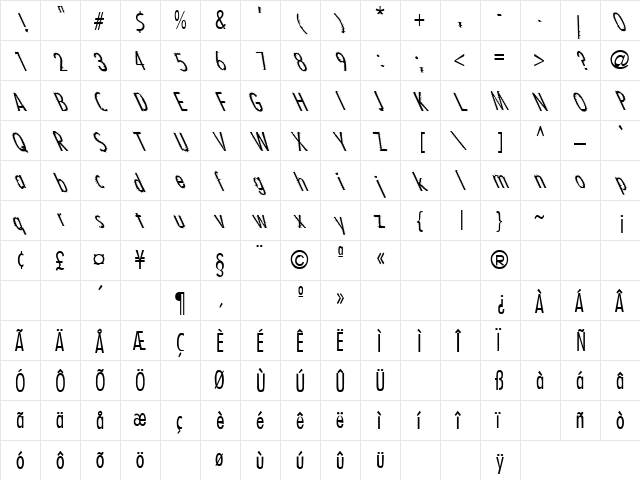
Ashes 1 Regular
Ashes 1 takes a measured approach to typography — its balanced proportions and neutral character make it a reliable workhorse for both digital and print work.